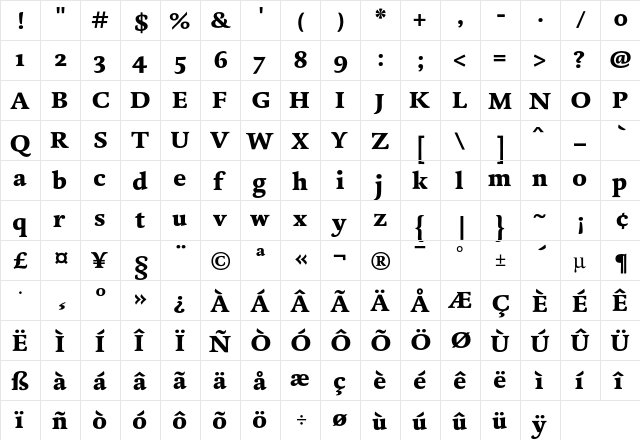
DTLDorianST Black
Design Context for DTLDorianST Typeface
DTLDorianST offers clean, dependable letterforms without strong stylistic allegiance, making it a practical choice for designers who need flexibility.